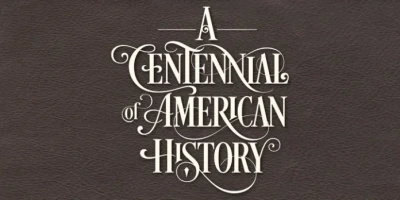
Kehlin Vintage Casual Font
Kehlin Vintage Casual Font is a charming and inviting typeface, perfectly suited for designs that aim to evoke a sense of nostalgic warmth, handcrafted authenticity, and a relaxed, approachable elegance. It's an excellent choice for a wide array of creative applications, including boutique branding, artisanal product labels, cozy cafe menus, vintage-inspired event invitations, social media graphics with a personal touch, and handcrafted goods packaging. Its friendly and slightly imperfect character also makes it ideal for personal blogs, classic advertising, historical recreation projects, and any digital or print media that seeks to convey a timeless, genuine, and inviting feel.
What makes Kehlin Vintage Casual Font so exciting is its remarkable ability to blend the comforting aesthetics of the past with a natural, unpretentious charm. It often features subtle irregularities, a warm texture, or a slightly hand-drawn quality that gives it an authentic, lived-in feel, as if lovingly created by hand. This font doesn't just display words; it whispers stories of bygone eras, inviting warmth, and simple pleasures. It's perfect for designers who want to infuse their projects with a profound sense of heritage, an inviting atmosphere, and an unmistakable aura of heartfelt craftsmanship, making every piece of text feel genuinely unique and full of character. Kehlin Vintage Casual Font truly delivers that comforting, old-world charm.
The Kehlin Vintage Casual Font family typically focuses on delivering its distinctive style, often as a singular, expressive display font. However, to enhance its versatility and provide a more natural, authentic appearance, it will often include:
1. A primary Regular weight: Embodying the core vintage casual aesthetic.
2. Extensive Stylistic Alternates: Offering different variations for certain letters to avoid repetition and add realism, common in handwritten or textured vintage fonts.
3. Ligatures: Seamless connections between characters for a smoother, more natural flow, enhancing its handcrafted feel.
4. Perhaps a Distressed or Rough version: To further emphasize its aged or rustic character.
5. Sometimes, a complementary basic Sans-serif or Serif font might be included in a larger package to provide a clean pairing for supporting text.